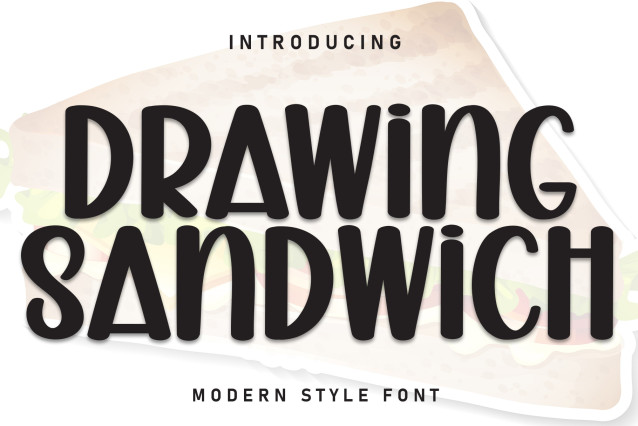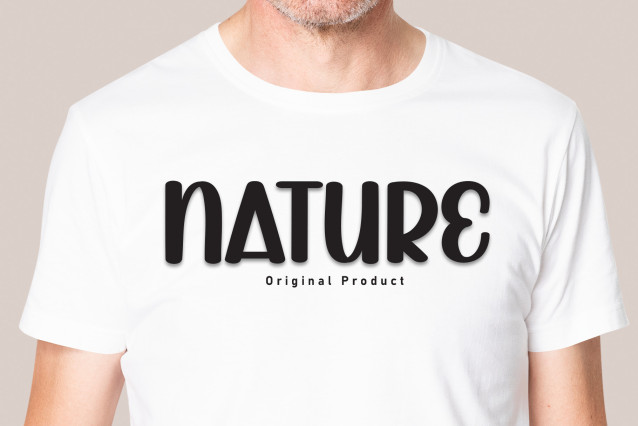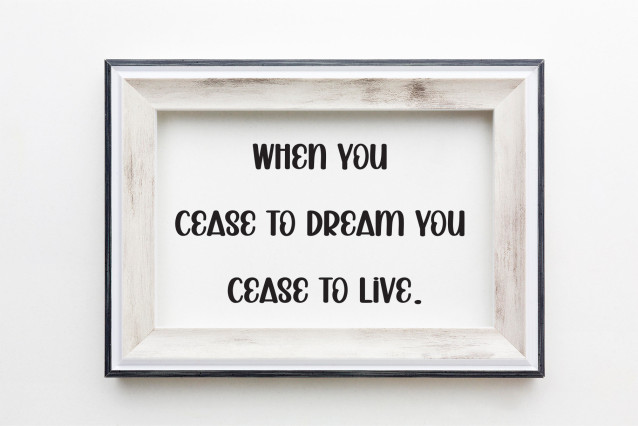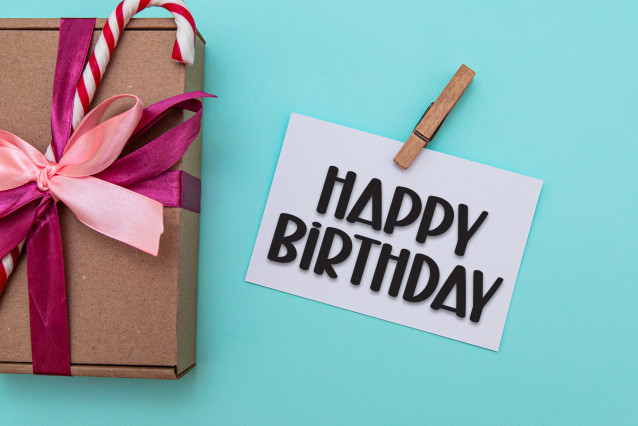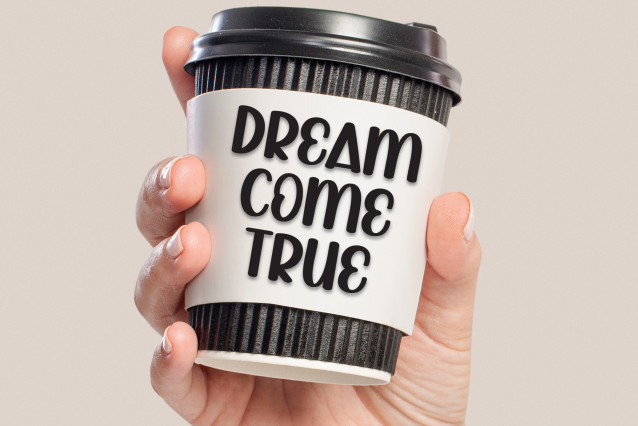
Drawing Sandwich Display Font
Drawing Sandwich Display Font is a sweet and friendly handwritten font. Its natural and unique style makes it incredibly fitting to a large pool of designs. The only limit is your imagination!